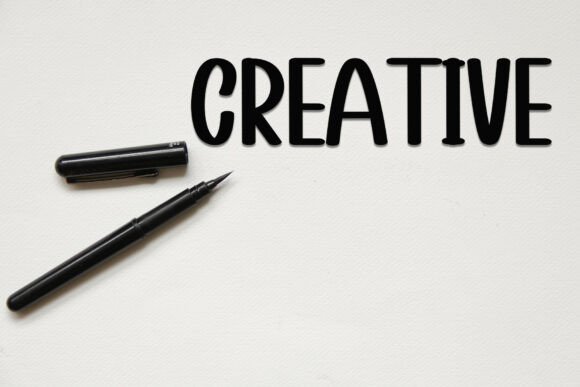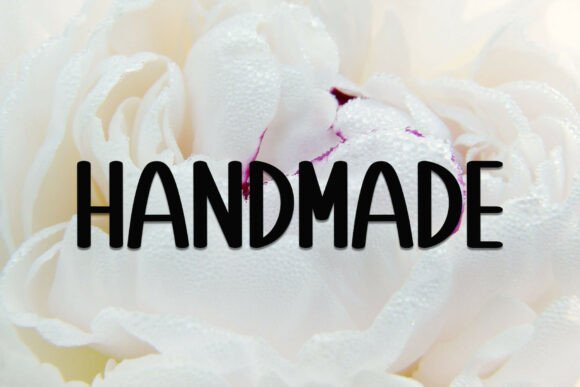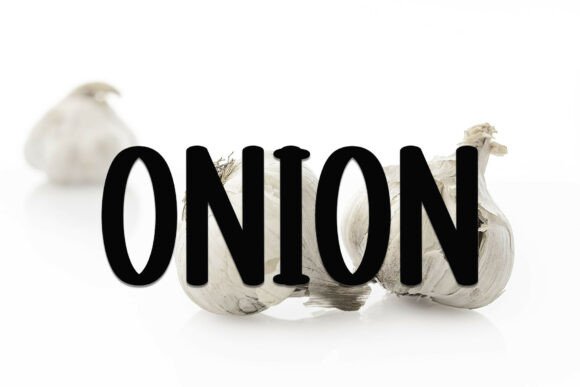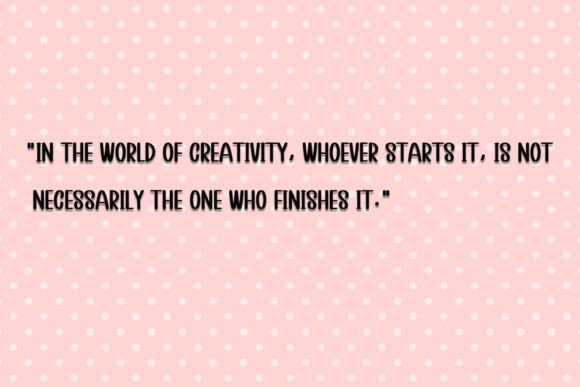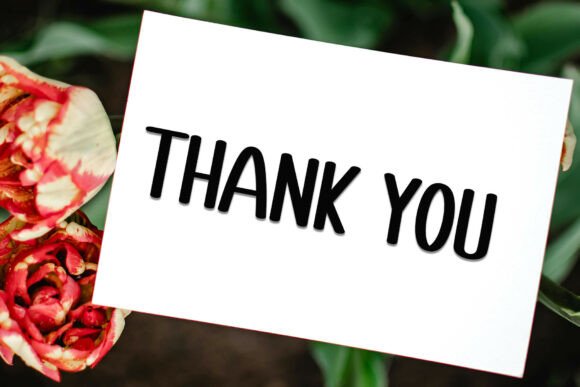
Introduction to Milkbiscuits Font
Do you ever find yourself stuck in a creative rut, searching for the perfect design element to bring your project to life? I know I do. For designers, finding the right font can be the key to unlocking a new level of visual impact and emotional connection with our audience. That’s why I’m excited to introduce you to one of my favorite design resources: the Milkbiscuits Font.
This charming handwritten font is more than just a pretty face – it’s a valuable asset for any creative project. With its bold, rounded structure and playful handcrafted charm, Milkbiscuits Font adds a touch of warmth and personality to any design. Whether you’re working on a branding project, creating packaging, or designing social media graphics, this font is sure to leave a lasting impression. And the best part? It’s available for free download, making it an accessible high-quality design resource for designers of all levels.
So why settle for a sterile geometric font when you can add a touch of human warmth to your design with the Milkbiscuits Font? With its clean readability and subtle handmade imperfections, this font is the perfect choice for designers looking to create projects that are both bold and approachable.
Key Features of Milkbiscuits Font
- Unique, hand-drawn design style ideal for creative projects and unique design resources.
- Multi-language support, including Latin, Cyrillic, and Greek alphabets, catering to a wide range of design needs.
- Designed with a modern and playful touch, perfect for branding, logos, and other creative applications.
Honest Review: Milkbiscuits Font
I recently came across the Milkbiscuits Font, and I must say it’s been a game-changer for my creative projects. The font is perfect for anyone looking for a unique, high-quality design resource.
Here’s what I love about the Milkbiscuits Font:
- ✨ Its elegant and playful design makes it perfect for a wide range of creative projects, from branding to editorial content.
- ✨ The transparent background option allows for seamless integration with any design, making it a versatile design resource.
However, I do have a few reservations about the Milkbiscuits Font:
- ⚠️ The font is not suitable for body text, as it can be quite ornate and difficult to read in large quantities.
Overall, I’m thoroughly impressed with the Milkbiscuits Font. Its unique design and high-quality aesthetic make it a valuable addition to any designer’s toolkit. If you’re looking for a fresh, creative solution for your design projects, I highly recommend giving the Milkbiscuits Font a try.
Common Use Cases for Milkbiscuits Font
The Milkbiscuits Font is suitable for various creative projects, including branding, marketing materials, and digital graphics. Its high-quality features make it an excellent choice for designers looking to create professional-looking designs.